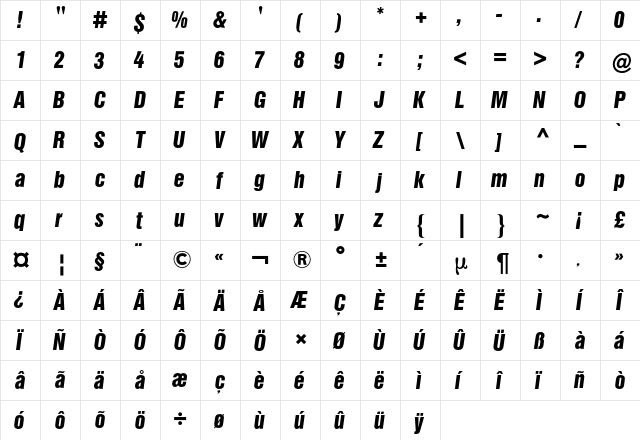
Helvetica Inserat BQ Regular
Helvetica Inserat BQ takes a measured approach to typography — its balanced proportions and neutral character make it a reliable workhorse for both digital and print work.